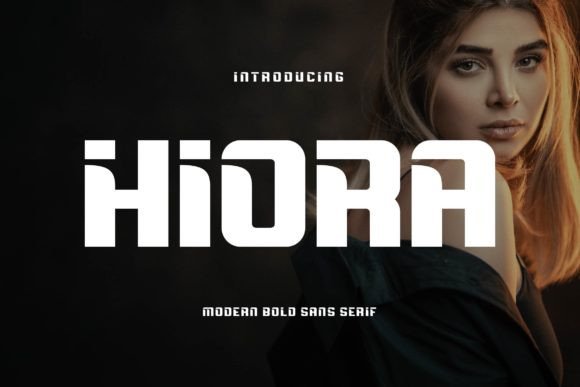
Introducing Hiora Sans, the font that speaks with boldness and clarity, leaving a lasting impression wherever it's used. Its sans serif design exudes a modern and minimalist aesthetic, making it the perfect choice for designers seeking a font that is both stylish and highly legible. Step into a world of creative possibilities, where Hiora Sans transforms your projects into captivating masterpieces.
With Hiora Sans, you'll find endless opportunities to bring your ideas to life. Design striking logos that demand attention, craft brochures that leave a lasting impression, and create videos that captivate your audience. Unleash your creativity in advertising and branding campaigns, where Hiora Sans's clean lines and strong presence will elevate your message and resonate with your target audience.
Hiora Sans is a font that speaks to the modern, design-savvy individual. It's perfect for crafting elegant invitations, creating layouts that exude sophistication, and adding a touch of beauty to any design project. Its versatility knows no bounds, extending from the digital realm to the tangible world, where it can be used for crafting stunning signage, eye-catching posters, and impactful presentations.